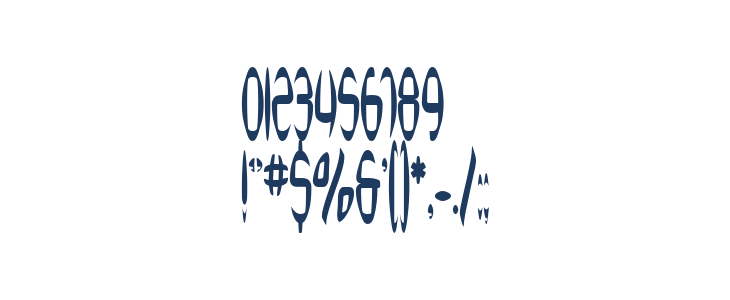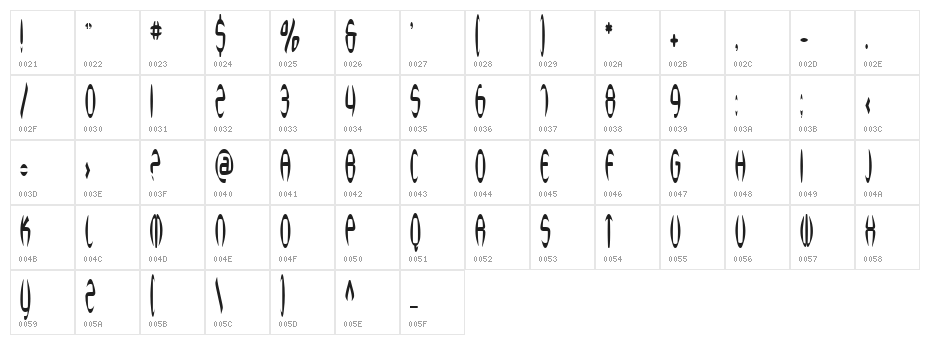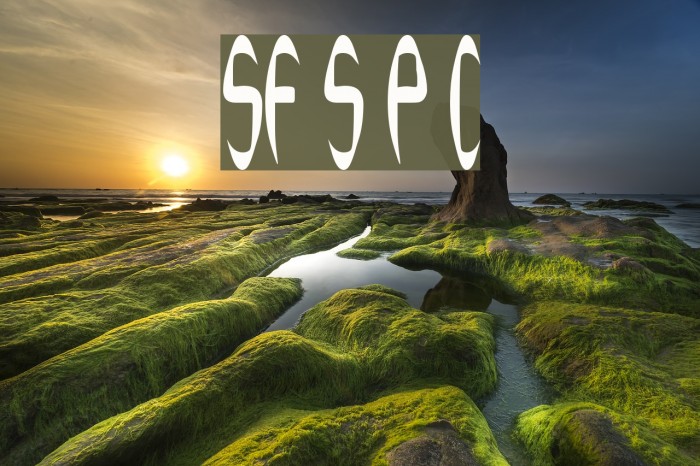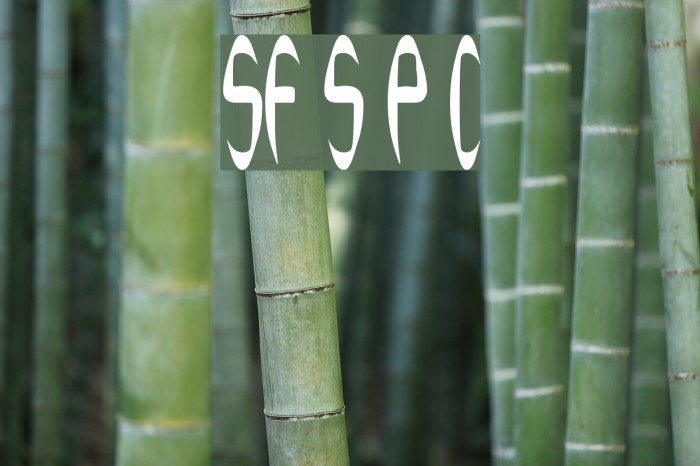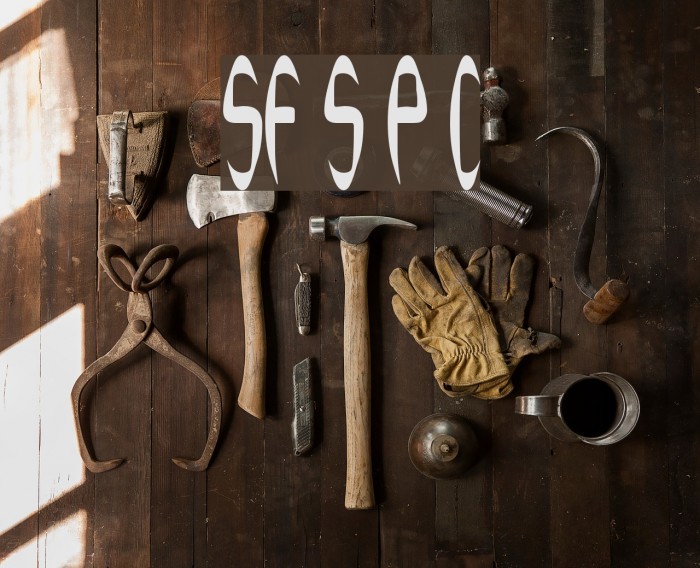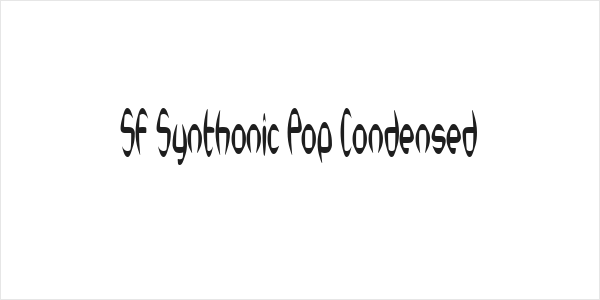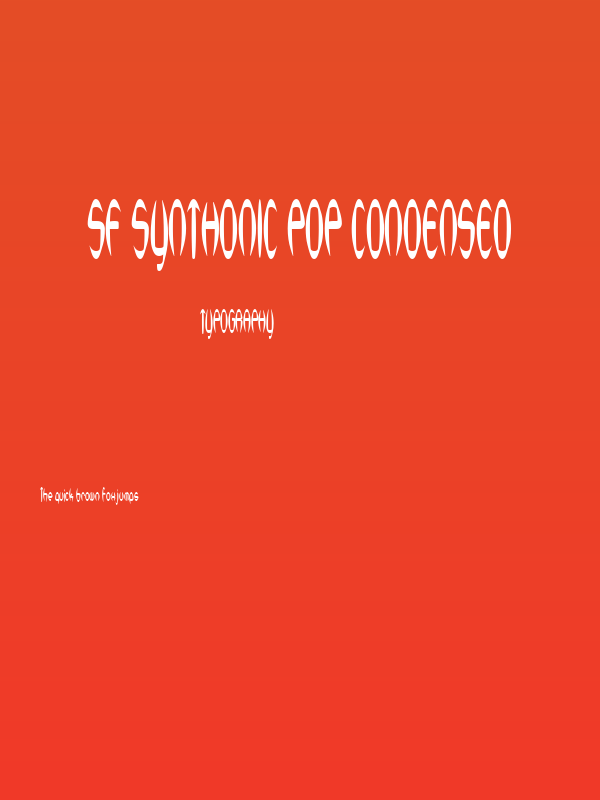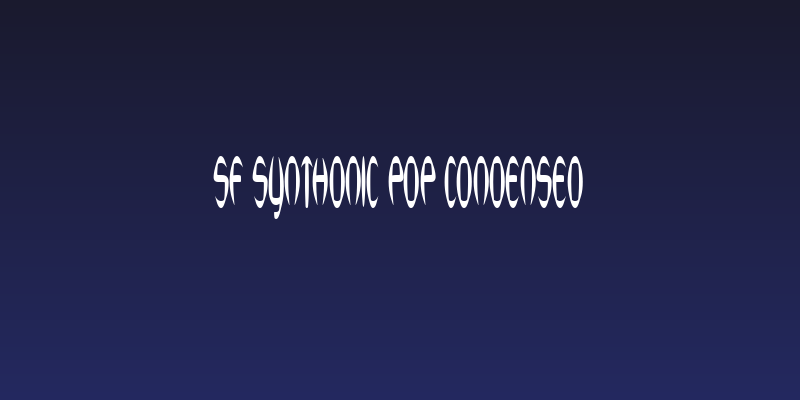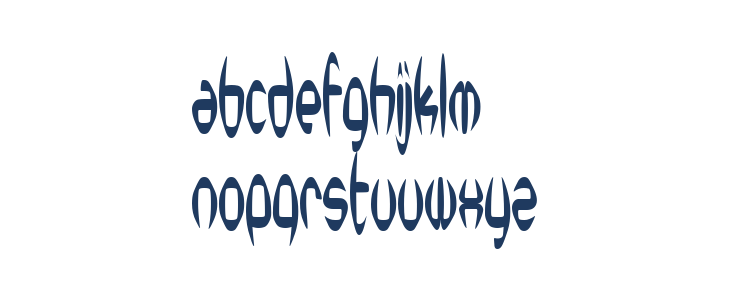
SF Synthonic Pop Condensed Font
SF Synthonic Pop Condensed Description
This font features a futuristic and condensed style with sharp, angular edges and a sleek appearance. The uppercase letters are tall and narrow, while the lowercase letters maintain a consistent height, creating a uniform look. The numbers and special characters follow the same design principles, ensuring a cohesive aesthetic. The overall design is bold and eye-catching, making it suitable for projects that require a modern and dynamic feel. The unique character shapes give it a distinctive personality, ideal for creative and innovative applications.
| Proposed Projects | Ideal for sci-fi themed designs, modern branding, album covers, and digital media projects. |